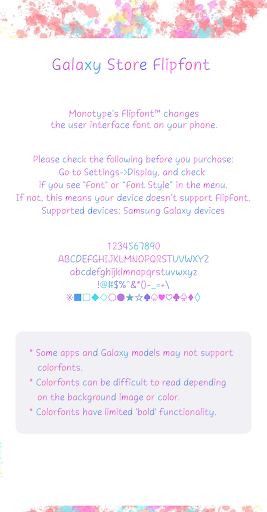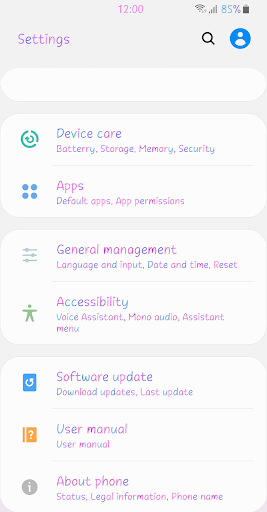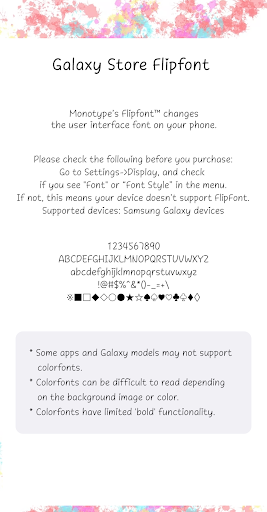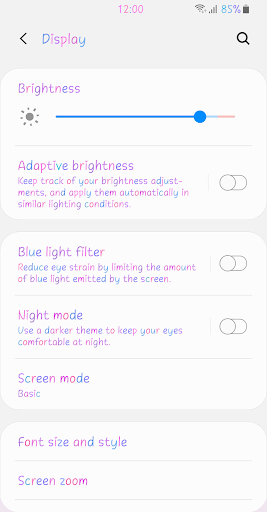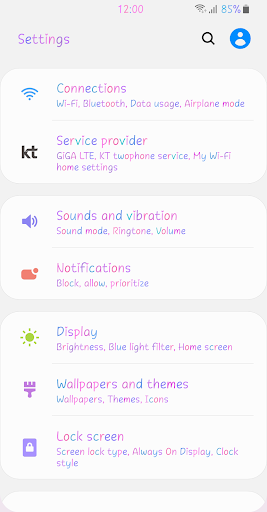
ZF Loveholic
This is a handwriting font in which the stroke thickness does not change significantly.
It gives a pleasant impression by adding a lovely color to the cute letters.
The comfort of natural shapes and vivid colors fills the screen.